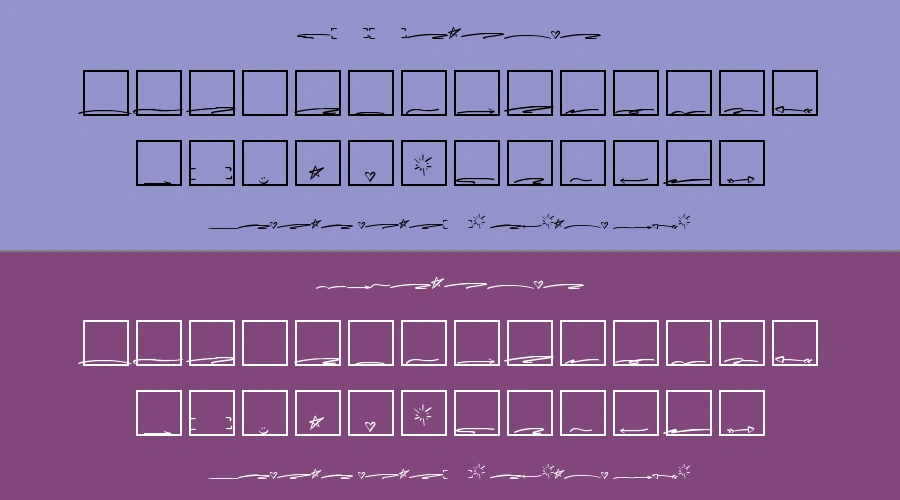
About Desire Script Extras Font
Desire Script Extras Font stands out for its distinctive combination of teardrop terminals and durability. Ideal for web design, it provides the professionalism and enduring appeal that professional projects demand. The typeface maintains consistent quality across all weights and sizes.
Key features include refined flourishes and practical contextual ligatures, enhancing typographic expression. In literary pages applications, Desire Script Extras Font demonstrates exceptional screen rendering. The aperture size and creative expression contribute to its distinctive character and professional appeal.